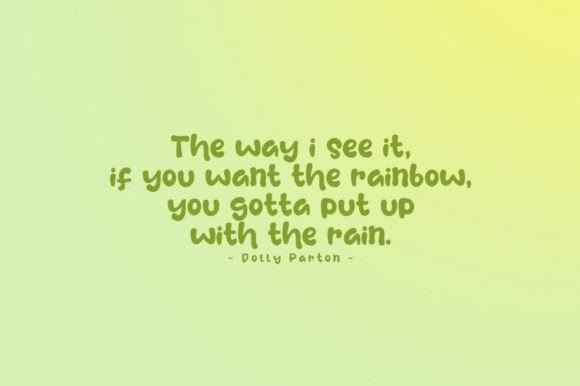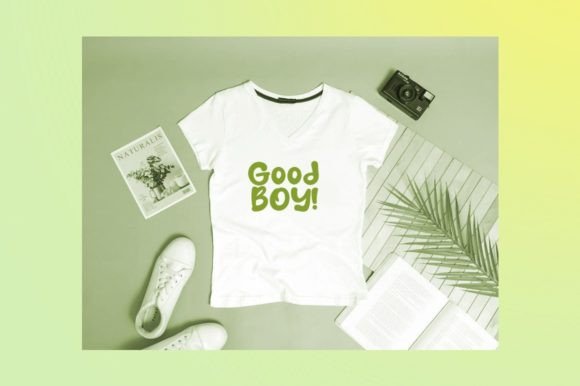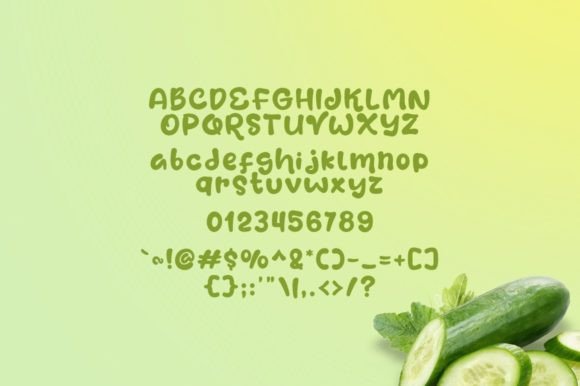
Introduction to Mentimun Font
As a designer, there’s nothing quite like the thrill of staring at a blank canvas, waiting for inspiration to strike. And then, suddenly, it hits – a burst of creativity that leaves you itching to bring your vision to life. For many of us, this moment is what makes all the late nights and early mornings worth it. But, let’s be honest, it’s not always easy to find the right tools to help us turn that spark into something truly special.
That’s where the Mentimun Font comes in – a stunning, high-quality handwritten font that’s perfect for adding a touch of elegance to your next creative project. And the best part? It’s a free download, available for anyone to use in their designs. Whether you’re working on a magazine cover, a logo, or a banner, this font is sure to elevate your work and make it stand out from the crowd.
With its transparent background and versatile style, the Mentimun Font is a valuable resource for designers of all levels. Whether you’re a seasoned pro or just starting out, this font is sure to become a trusted companion in your design journey. So why wait? Download the Mentimun Font today and start creating something truly amazing.
Key Features of Mentimun Font
- High-quality, unique design suitable for creative projects
- Available for free download, making it an excellent design resource
- Includes a transparent background for easy customization and flexibility
- Each font size and resolution is carefully crafted to ensure optimal clarity and readability
- Perfect for designers, artists, and creatives looking for a distinctive and eye-catching font
Honest Review: Mentimun Font
I recently stumbled upon the Mentimun Font, a free download that has been a game-changer for my creative project. The moment I laid eyes on it, I knew I had found a valuable design resource.
- High-quality graphics that are crisp and clear ✨
- Customizable transparency option, allowing for seamless integration with a transparent background ✨
- Unique and creative design that adds a touch of elegance to any project ✨
- Limited font styles and variations, which may not be suitable for complex designs ⚠️
- No support for specific font sizes or customization options ⚠️
Overall, I’m thoroughly impressed with the Mentimun Font. While it may not be perfect, its high-quality graphics and unique design make it a valuable addition to any design project. I highly recommend it as a free download for anyone looking to elevate their creative project.
Tips for Getting the Most Out of Mentimun Font
Use Mentimun Font with a transparent background to create visually appealing designs. You can also combine it with other fonts to create a unique and creative look. Download Mentimun Font for free to get started with your design project.
Mentimun Font is commonly used for designing logos, icons, graphics, social media posts, flyers, brochures, presentations, and documents. This font is perfect for designers, marketers, and small business owners who want to create high-quality designs without breaking the bank.
Alternatives to Mentimun Font
The Great Vibes Font is a high-quality, elegant script font perfect for creative projects that require a touch of sophistication. It’s ideal for wedding invitations, branding materials, and other design elements that demand a sense of luxury. Great Vibes Font offers a transparent background, making it easy to layer and customize. While it’s not as playful as Mentimun Font, it shares a similar level of sophistication and can be used for similar design purposes.
The Alex Brush Font is a beautiful, handwritten font designed for creative projects that require a personal touch. It’s perfect for blog headers, quotes, and other design elements that need to convey a sense of emotion. Alex Brush Font offers a high-quality, transparent background that can be easily customized to fit your design needs. Compared to Mentimun Font, Alex Brush Font has a more elegant and refined feel, making it suitable for a wider range of design applications.
To apply a transparent background to the Mentimun Font, you can use design software like Adobe Photoshop or Illustrator, which support layer transparency. Alternatively, you can use a font editing tool to create a transparent background for the font.
What design resources are available for the Mentimun Font?